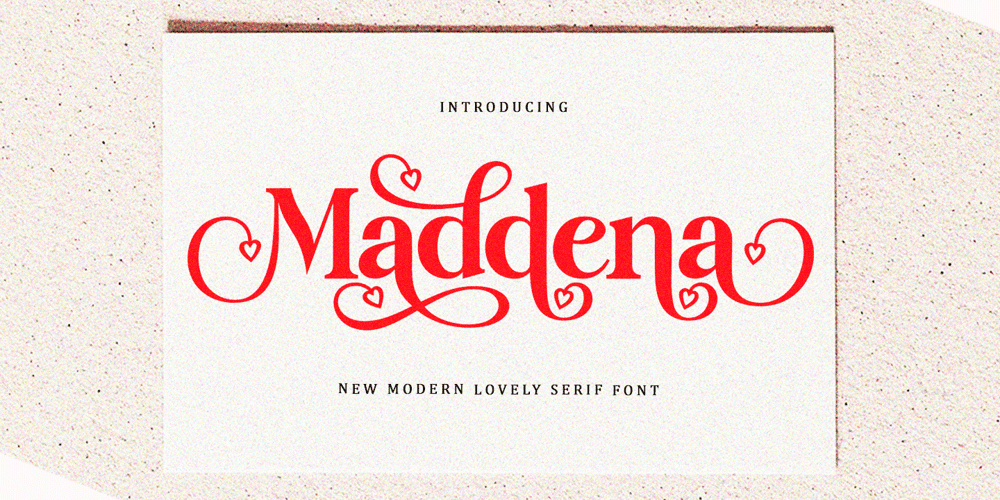
Maddena Font Family was designed by Wahi Din and published by Gold Type. Maddena contains 1 styles and family package options. Maddena is a versatile lovely serif font. This font is characterized by a serif style with a luxurious style in the form of a love style, but also has a friendly and playful style in bold,Madden has glyphs to give the crafter more options in designing. This love style will make the design look more classy, elegant, unique and edgy.Maddena is a font suitable for many projects, for modern or even retro vintage designs, branding, logos, crafts, stickers, sublimation, wedding invitations, and more. This font is suitable for a variety of projects such as logos, branding, magazines, signage, fashion, and many more.what you will have:Uppercase and lowercaseNumbers and punctuationMultilingual supportPUA encoded fontsAlternative styles and ligaturesThank You